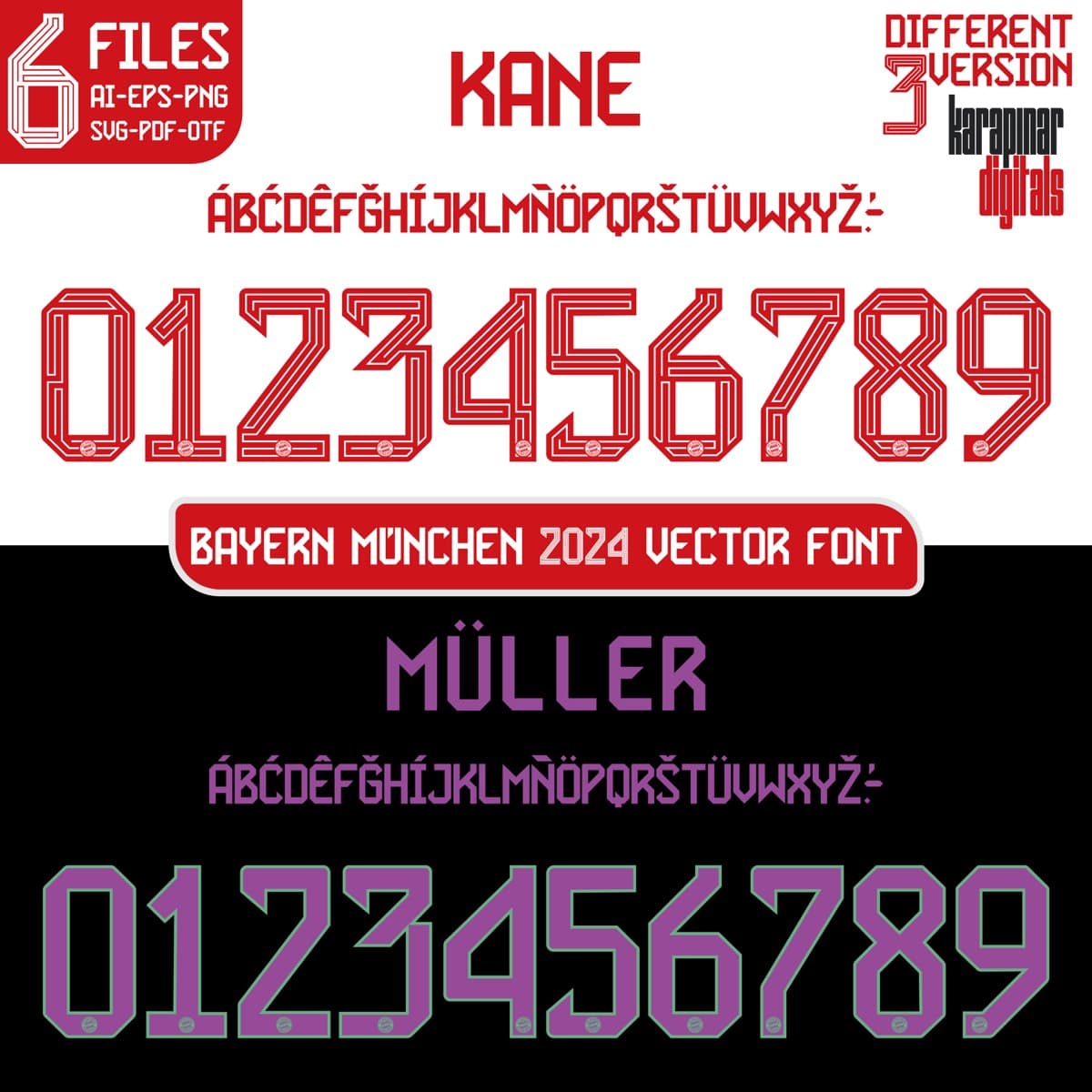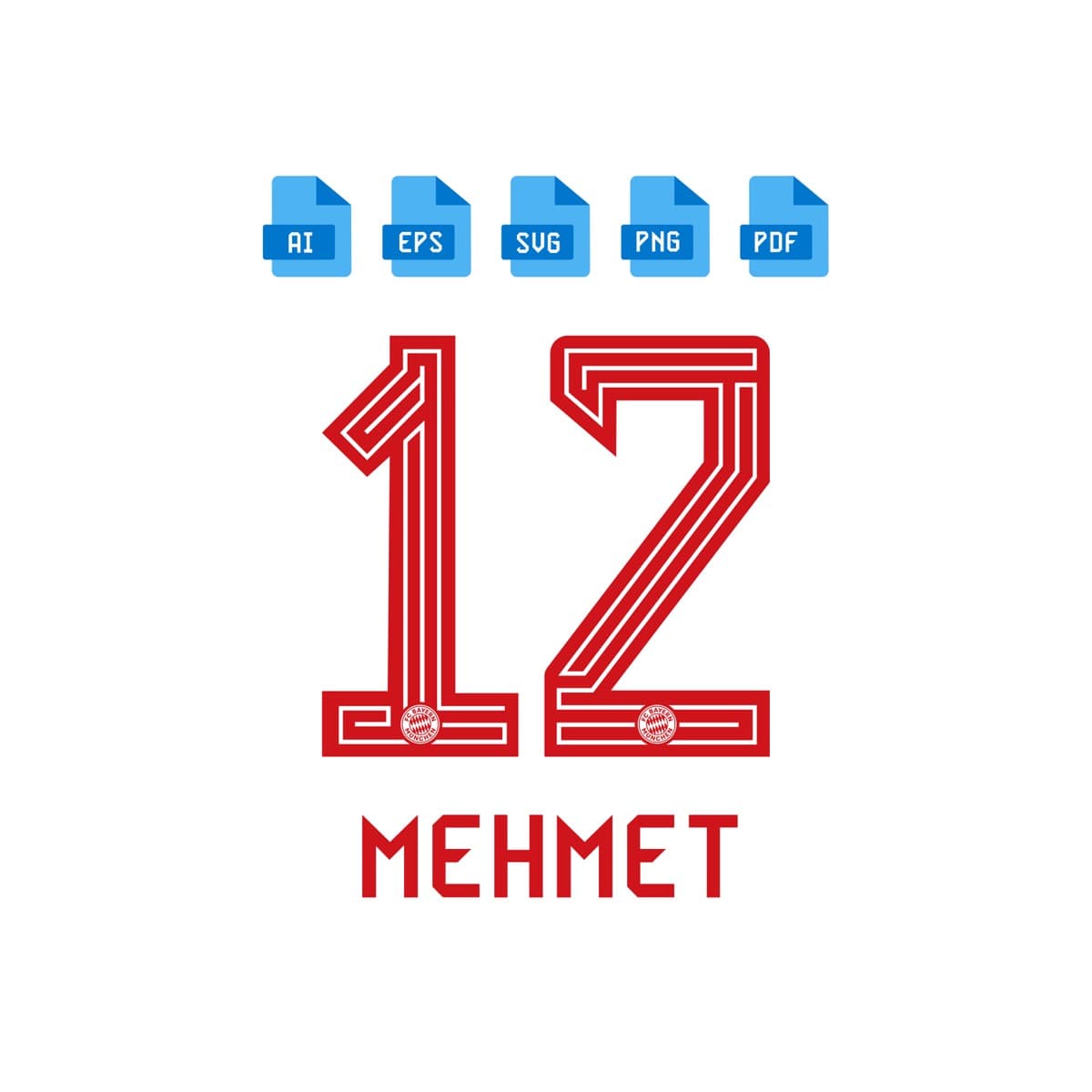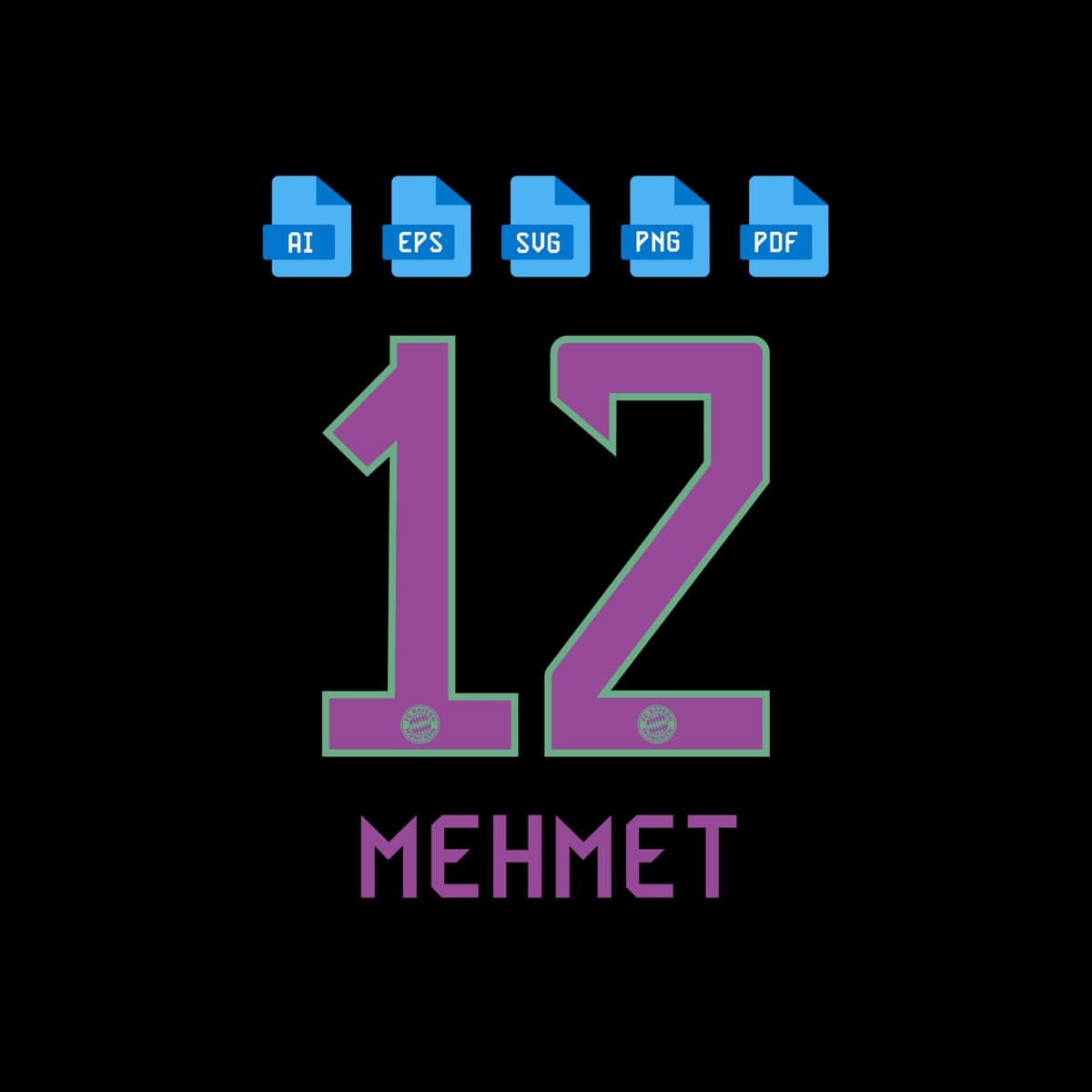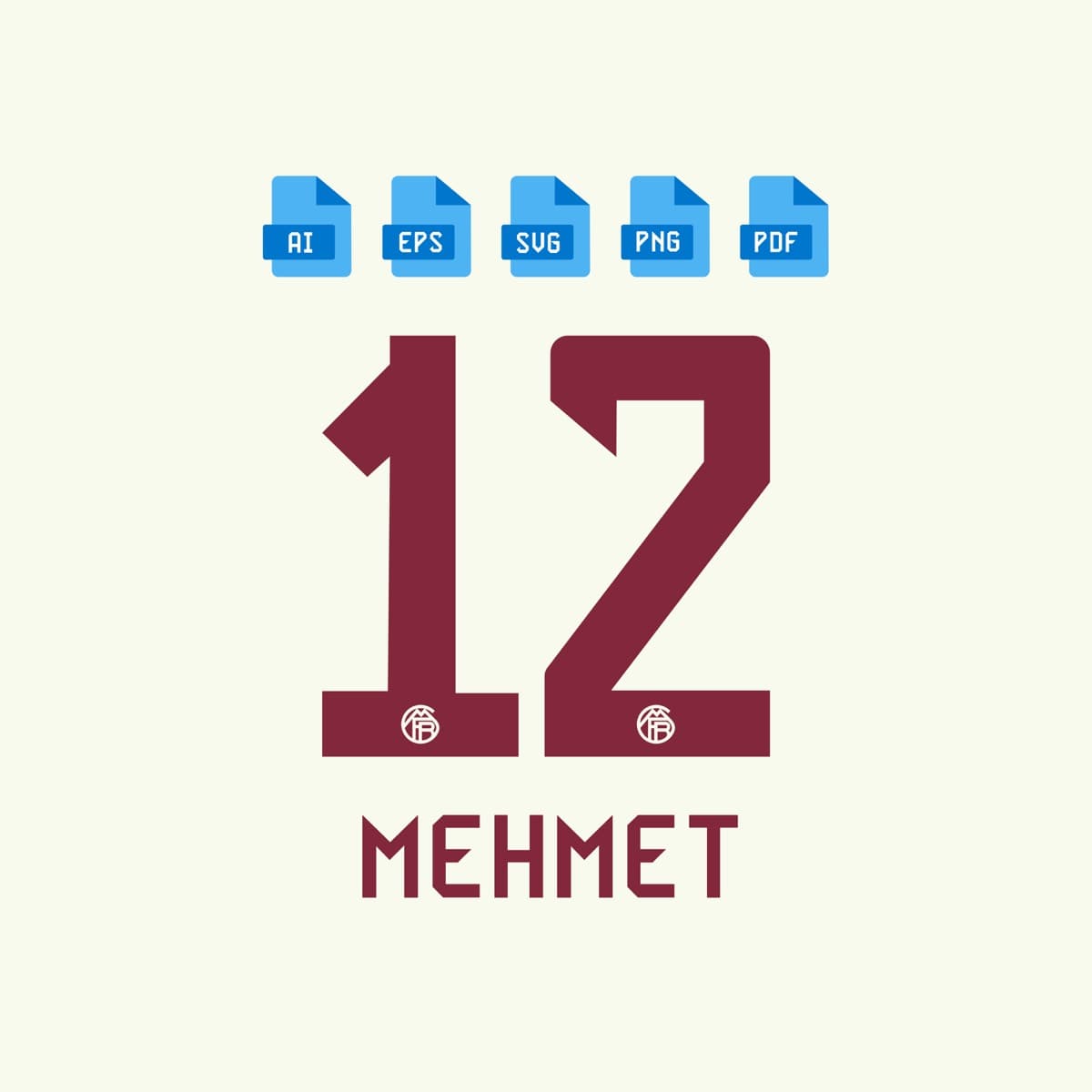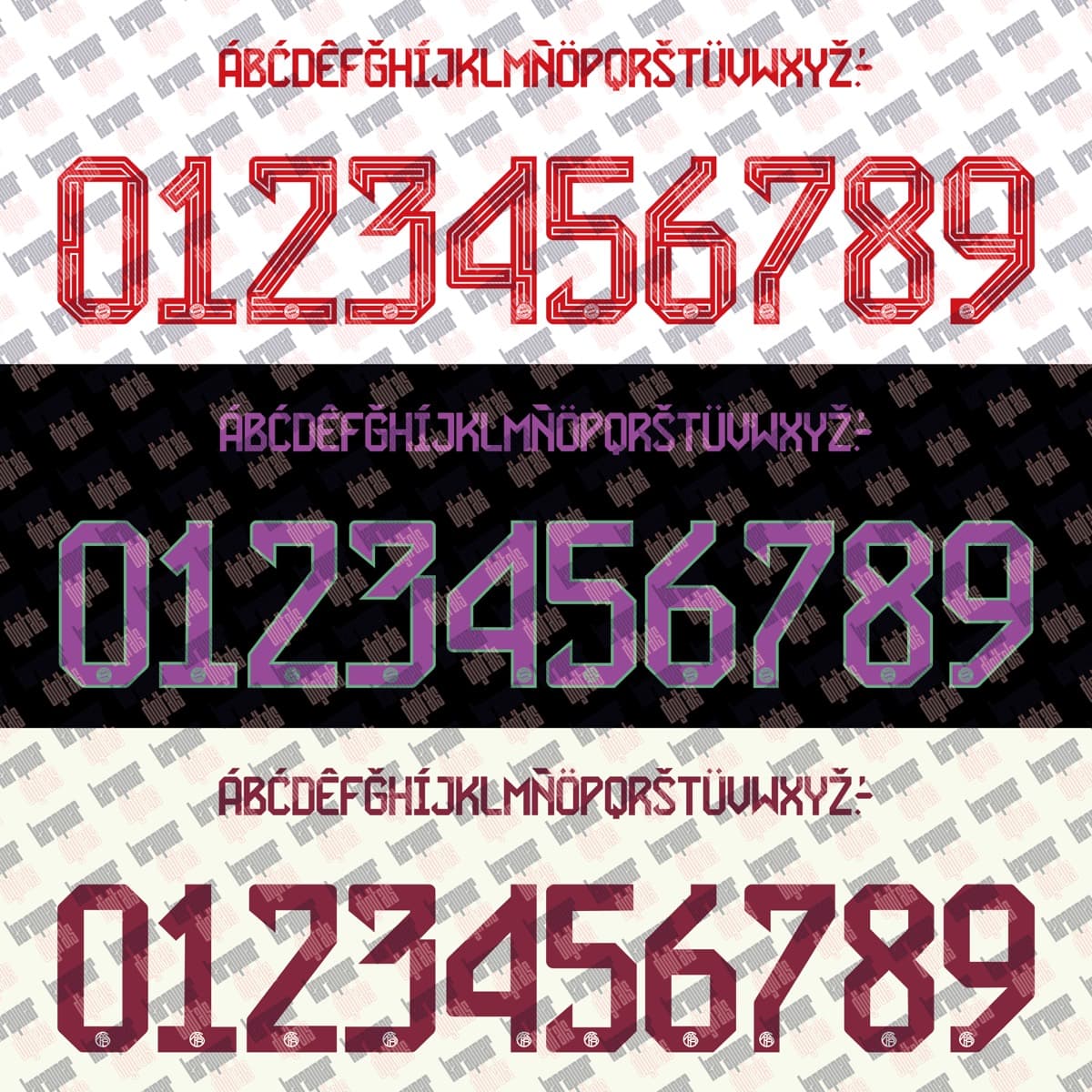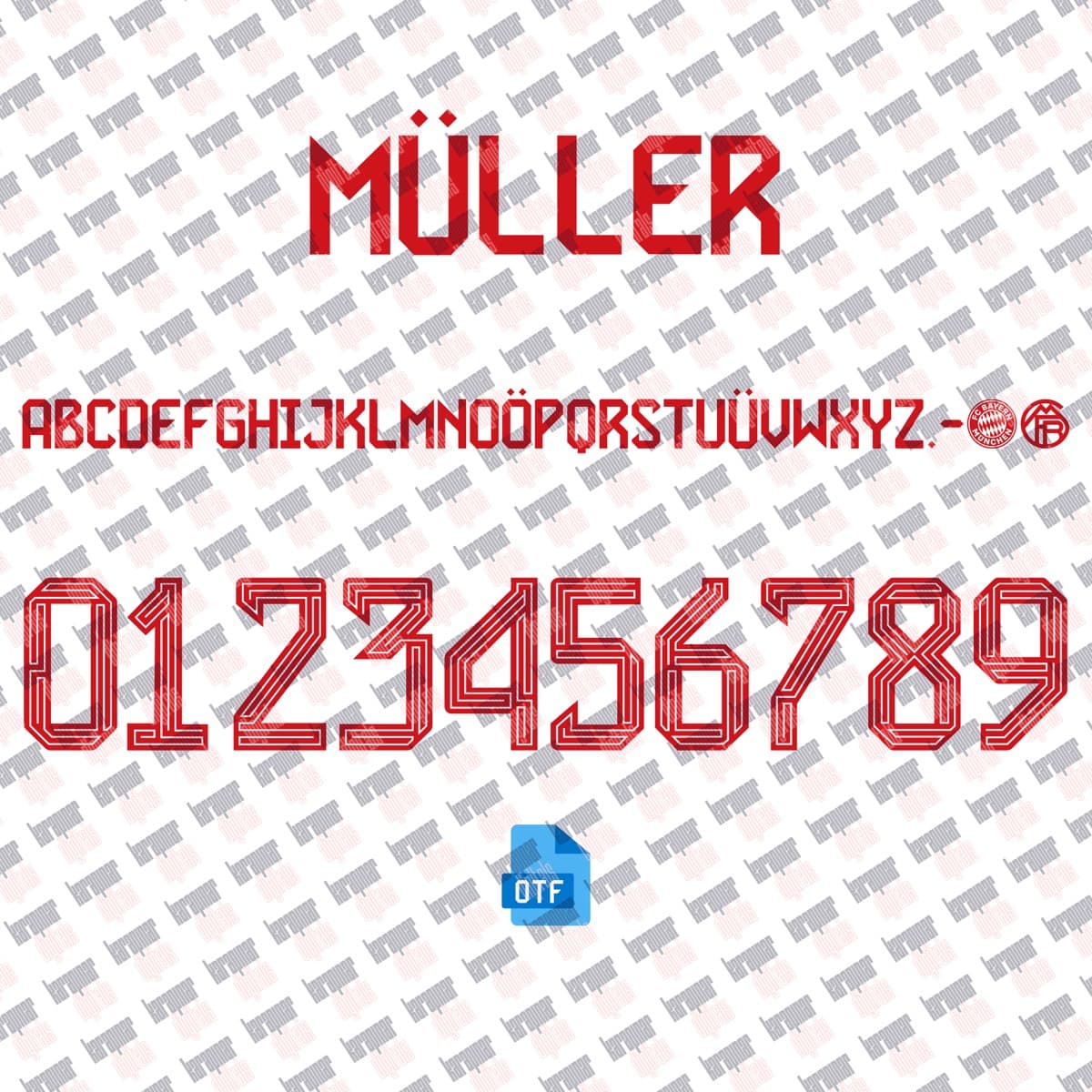
Bayern München 2024
Bayern Munich · 2024
A set inspired by the Bayern Munich 2024 jersey typography, with a name and number system redrawn for print and screen. Original curves, consistent weight and a complete 0–9 numeral family.